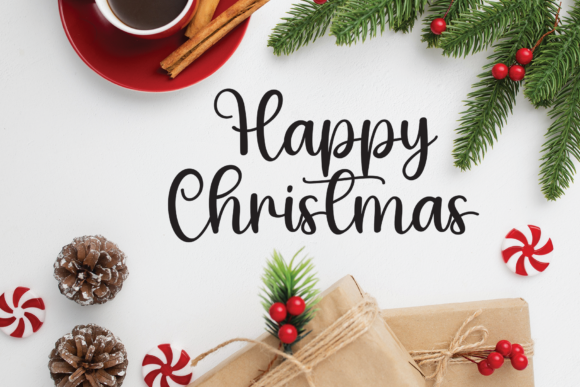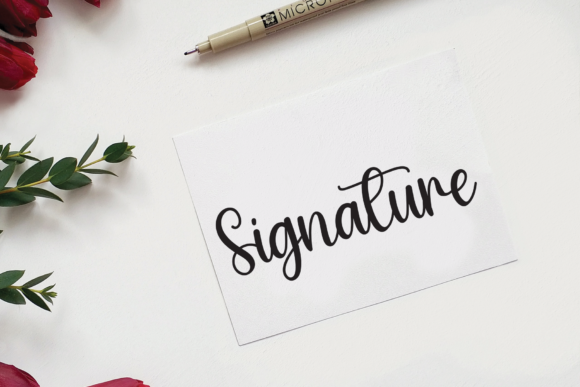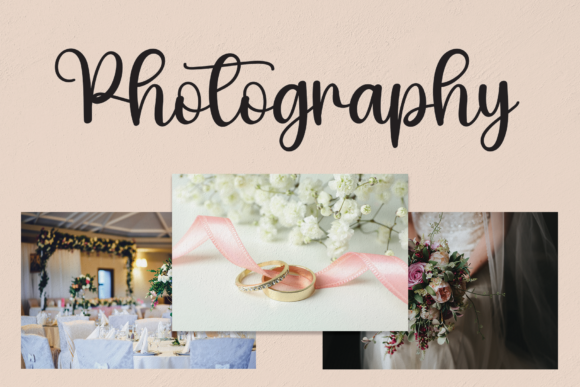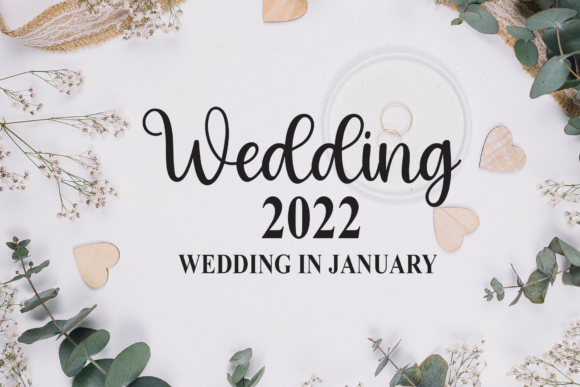
Welcome Valentine Font
About Welcome Valentine Font
Welcome Valentine is a round lettered and chic handwritten font. Fall for its ravishing style and use it to create gorgeous wedding invitations, beautiful stationary art, eye-catching social media posts, and much more!